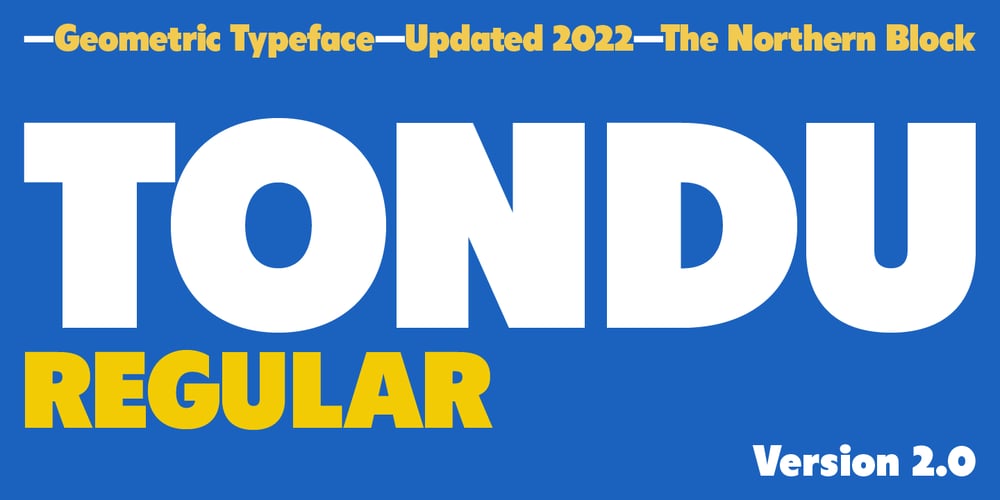
Tondu Font Family was designed by Jonathan Hill and published by The Northern Block. Tondu contains 1 styles and family package options. Tondu is a straightforward display typeface inspired by film posters of the early 1900s. Strong upright forms combined with smooth curved details create a clear and bold font ideal for apparel, billboards, books and posters. Tondu is now available as version 2.0 (2021); the remastered version meets higher technical standards that modern-day users demand.Included in the font are over 490 characters, in one heavyweight style. Opentype features consist of digital numerals, lining figures, fractions and language support covering Western, South and Central Europe.